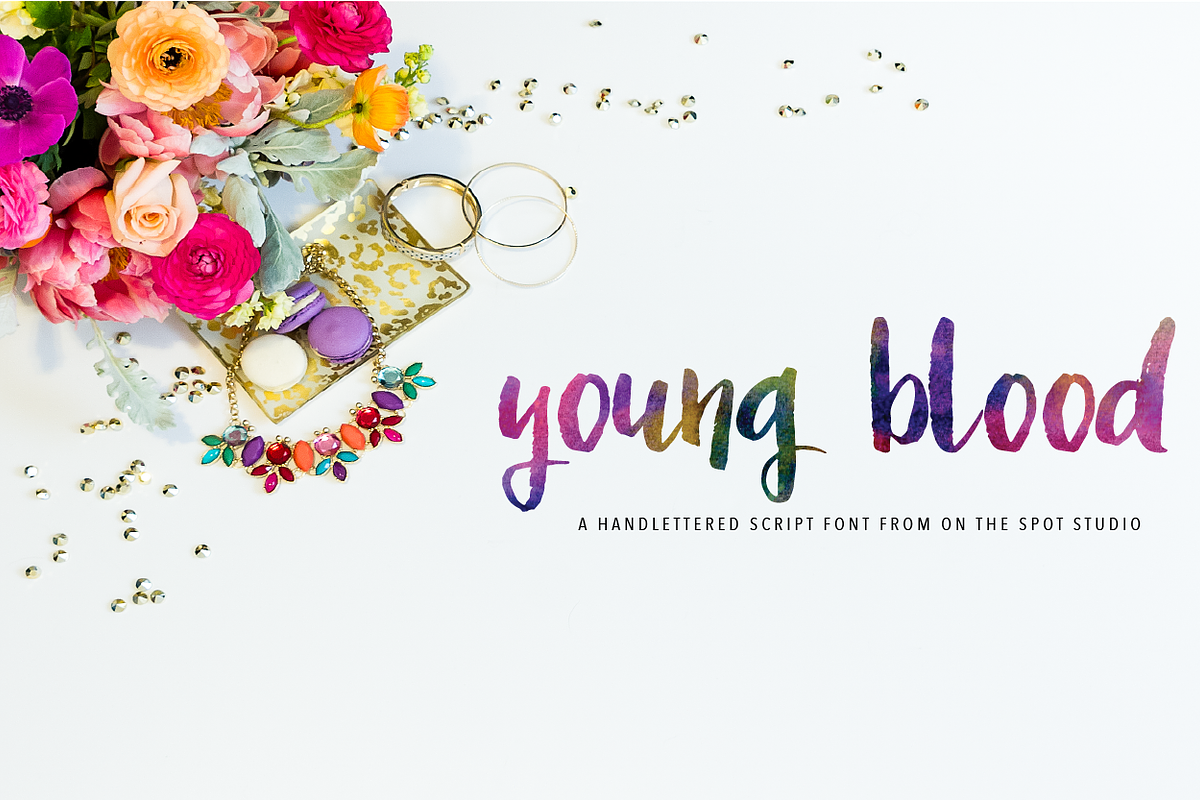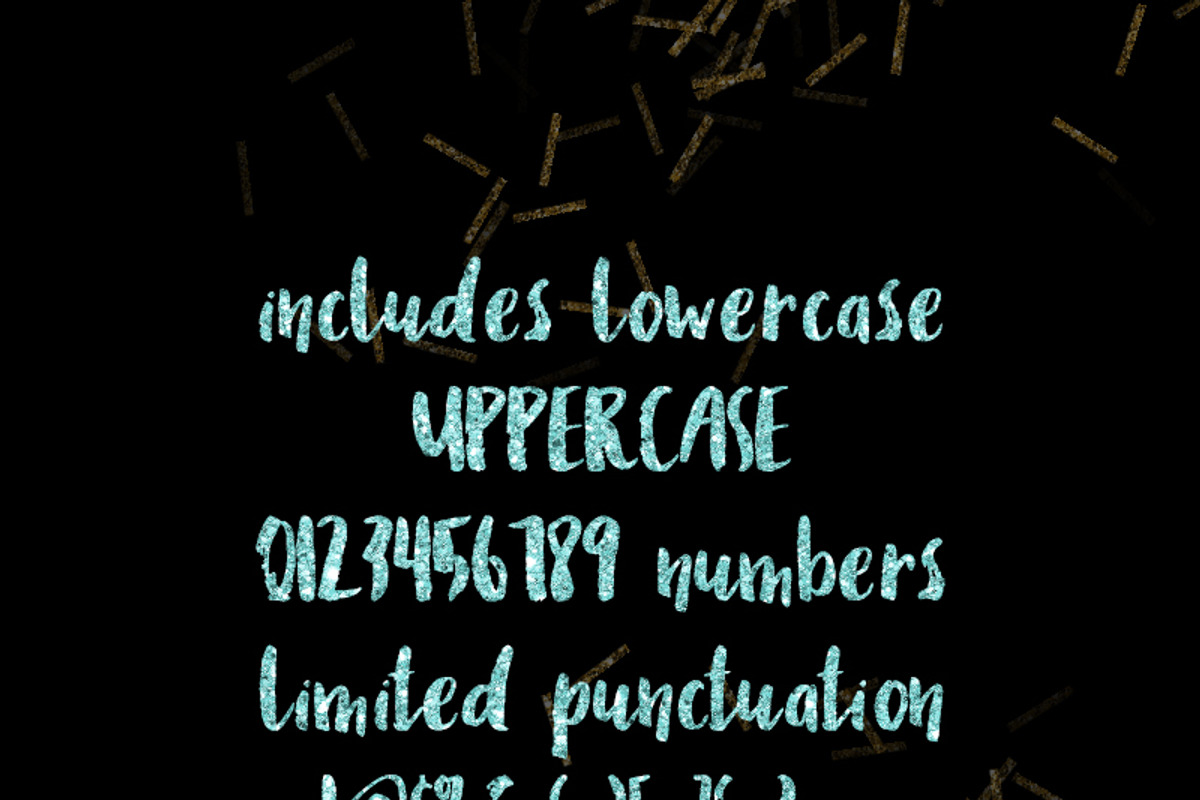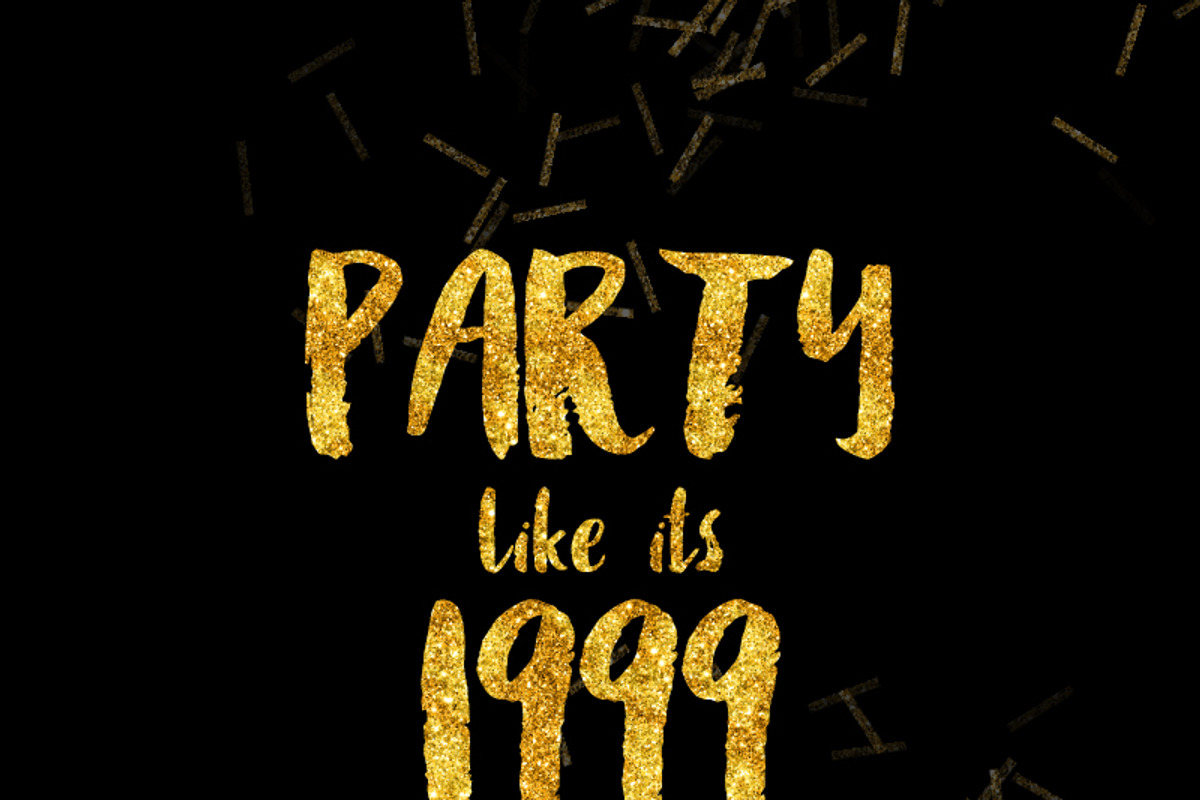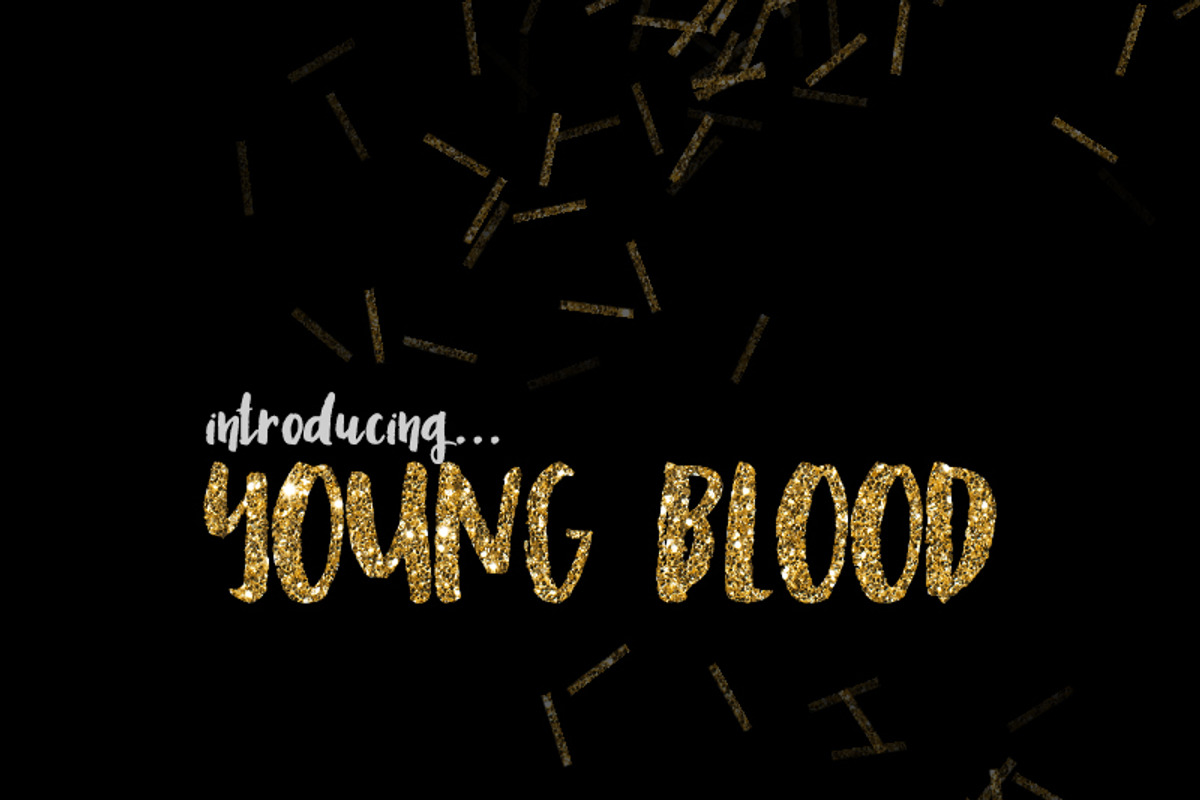
Young Blood Brush Font
Young Blood Brush Font by OnTheSpotStudio is a font selected for branding, posters, packaging, typography.
- hand brushed font with uppercase, lowercase, numbers, and limited punctuation!
Why Young Blood Brush Font is worth a look
Young Blood Brush Font by OnTheSpotStudio fits naturally into Branding, posters, packaging, typography.